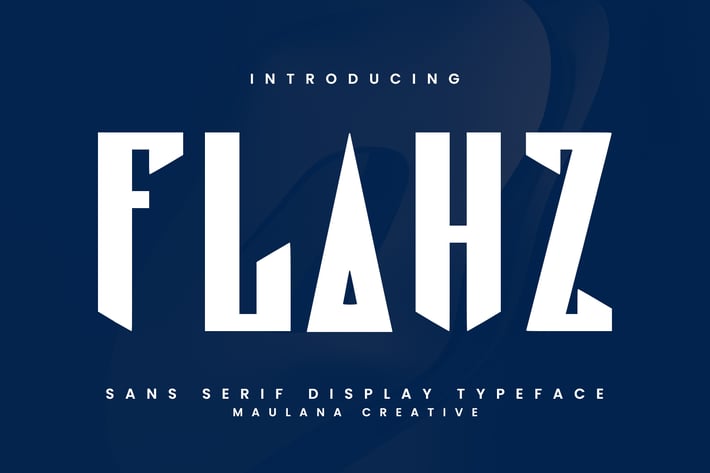
Flahz Decorative Display Font
Flahz decorative display font. Heavy stroke, fun character with a bit of ligatures. To give you an extra creative work. Flahz decorative display font support multilingual more than 100+ language. This font is good for logo design, Social media, Movie Titles, Books Titles, a short text even a long text letter and good for your secondary text font with script or serif. Make a stunning work with Flahz decorative display font.